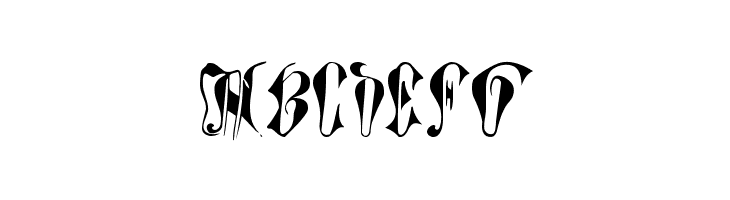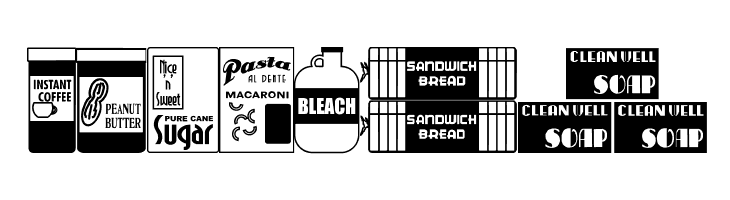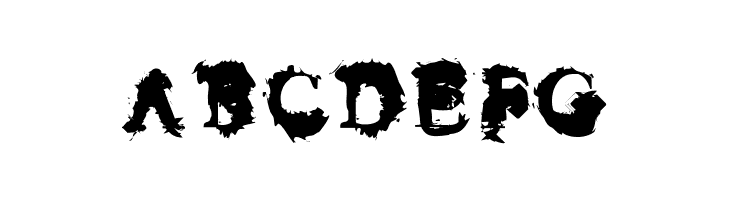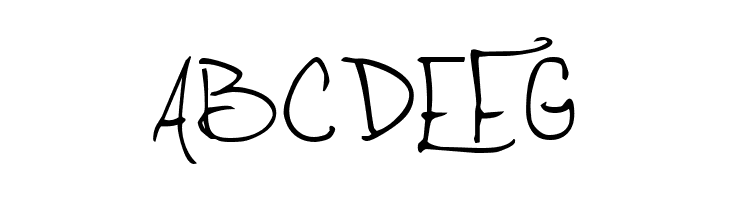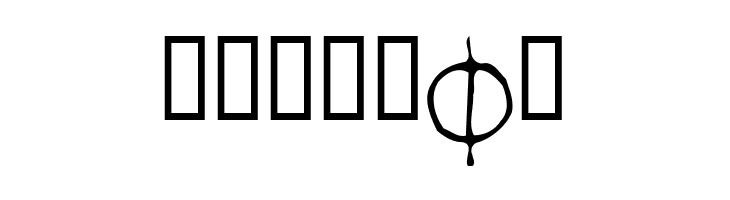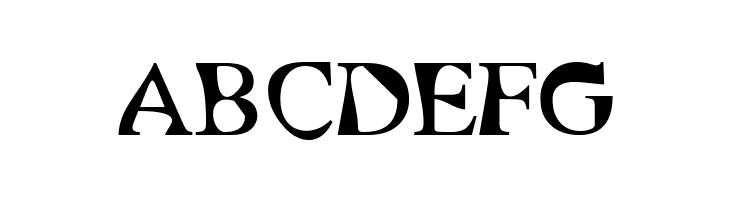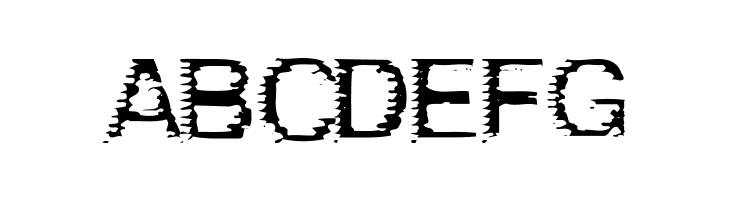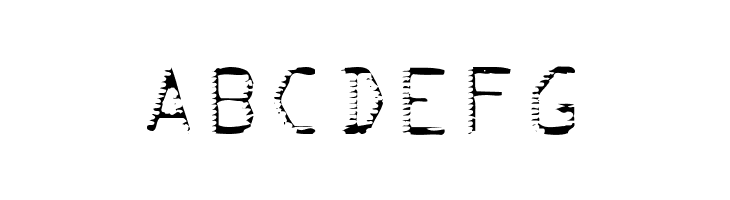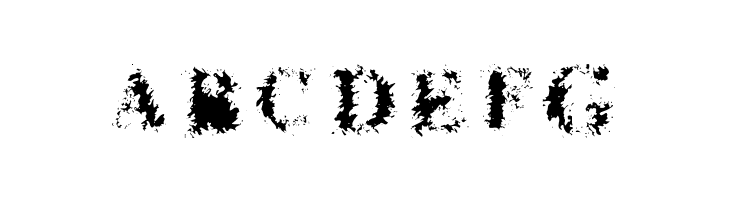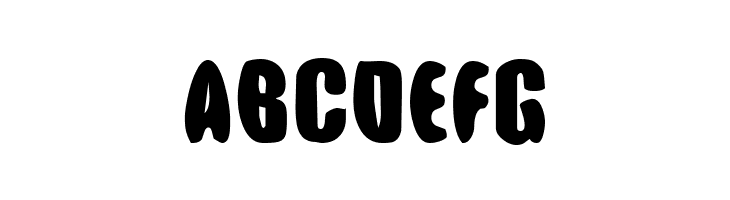
A bold, distressed font with an ink-splattered, grunge aesthetic.
A decorative Gothic-style font with intricate, bold designs and sharp serifs.
A whimsical handwritten font with bold, monospaced numbers.
A font inspired by early Western Greek scripts with an ancient, hand-drawn aesthetic.
A bold, angular serif font with a modern twist.
A bold, angular font with a futuristic and geometric design.
Handwritten, ancient script with organic, flowing forms.
A bold, distressed font with a glitch effect, featuring jagged edges and irregular strokes.
A distressed, chaotic font with jagged edges and a grunge aesthetic.
A futuristic, glitch-inspired font with a digital and fragmented appearance.
A rugged, textured font with a distressed, industrial appearance.
A playful, bold font with rounded, bulbous characters and a whimsical style.
A modern, clean sans-serif font with excellent readability and uniform stroke weight.
An ornate Gothic-style font with dramatic, intricate designs and bold strokes.
A decorative font inspired by vintage grocery store packaging with a retro and playful style.